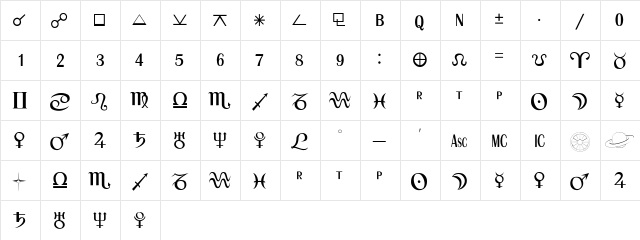
Mercure-SemiBold Regular Font Preview
Mercure-SemiBold Regular
Mercure-SemiBold Regular Font Details
Design Context for Mercure-SemiBold Typeface
Mercure-SemiBold is a composed and adaptable typeface that performs quietly and consistently across a wide range of design contexts. Its bold stroke weight gives it real presence on the page.